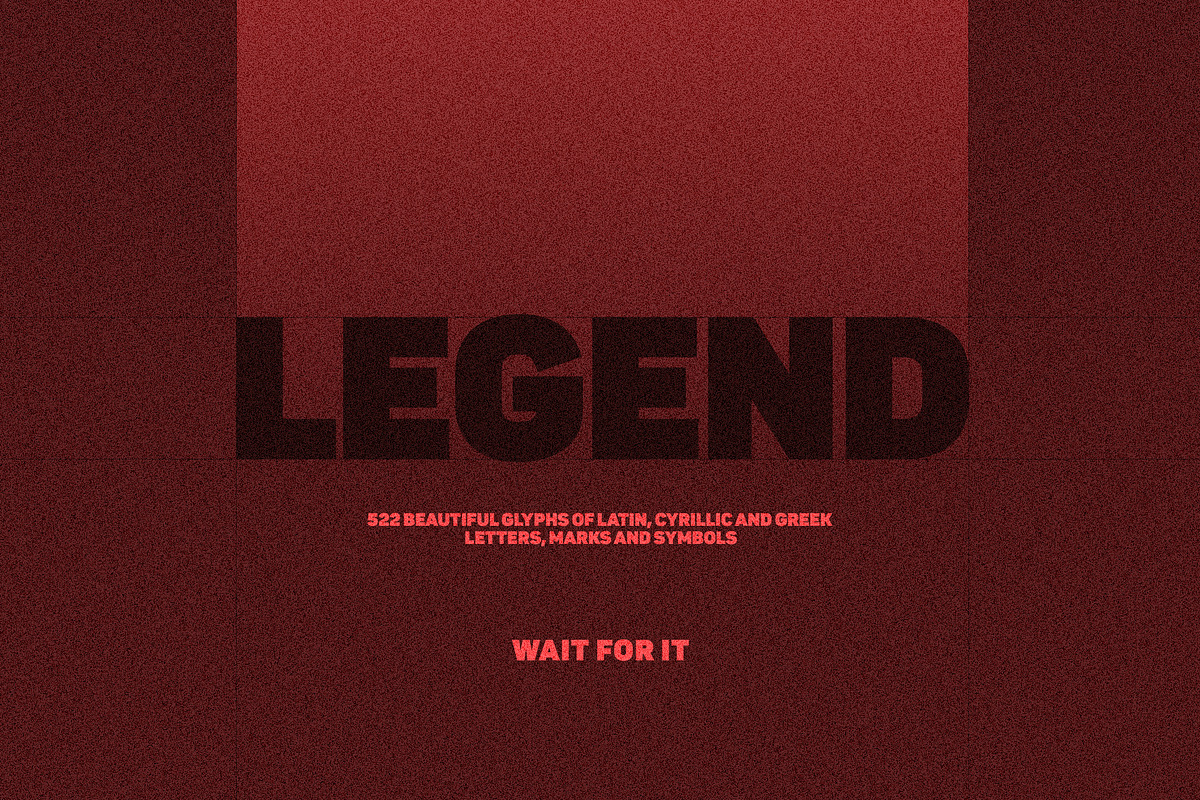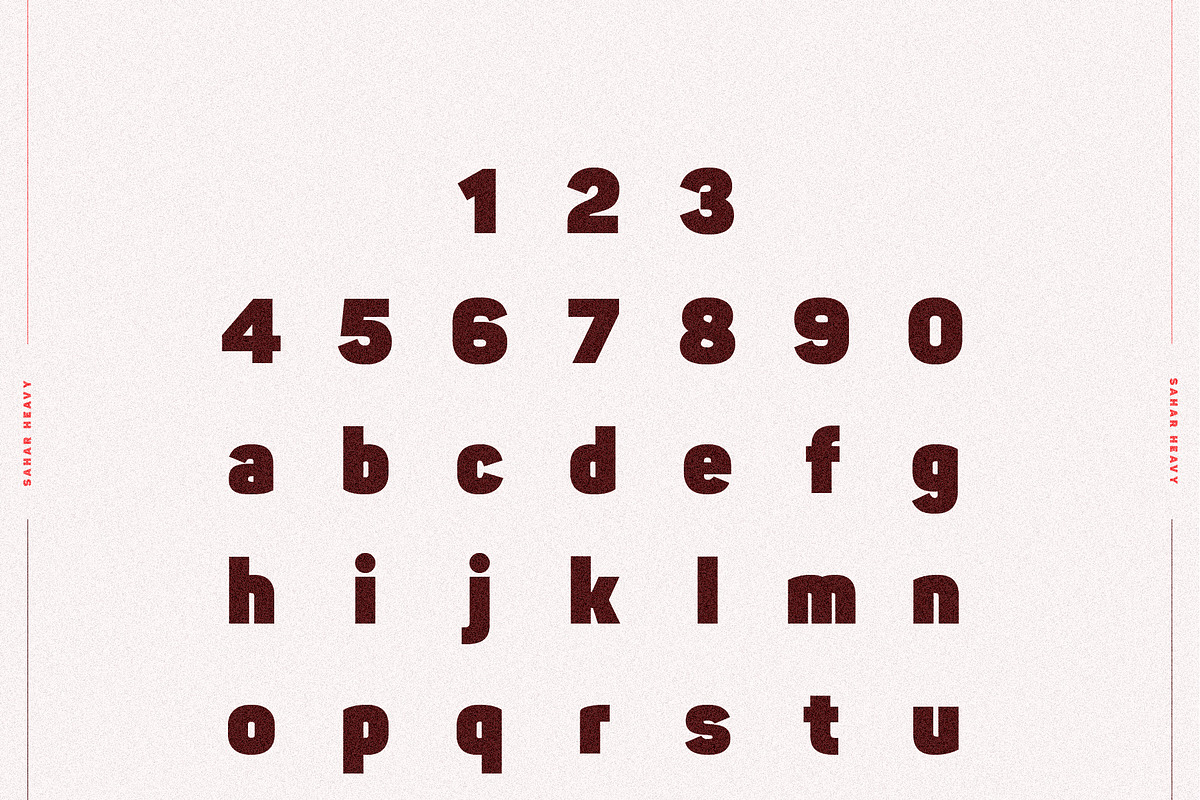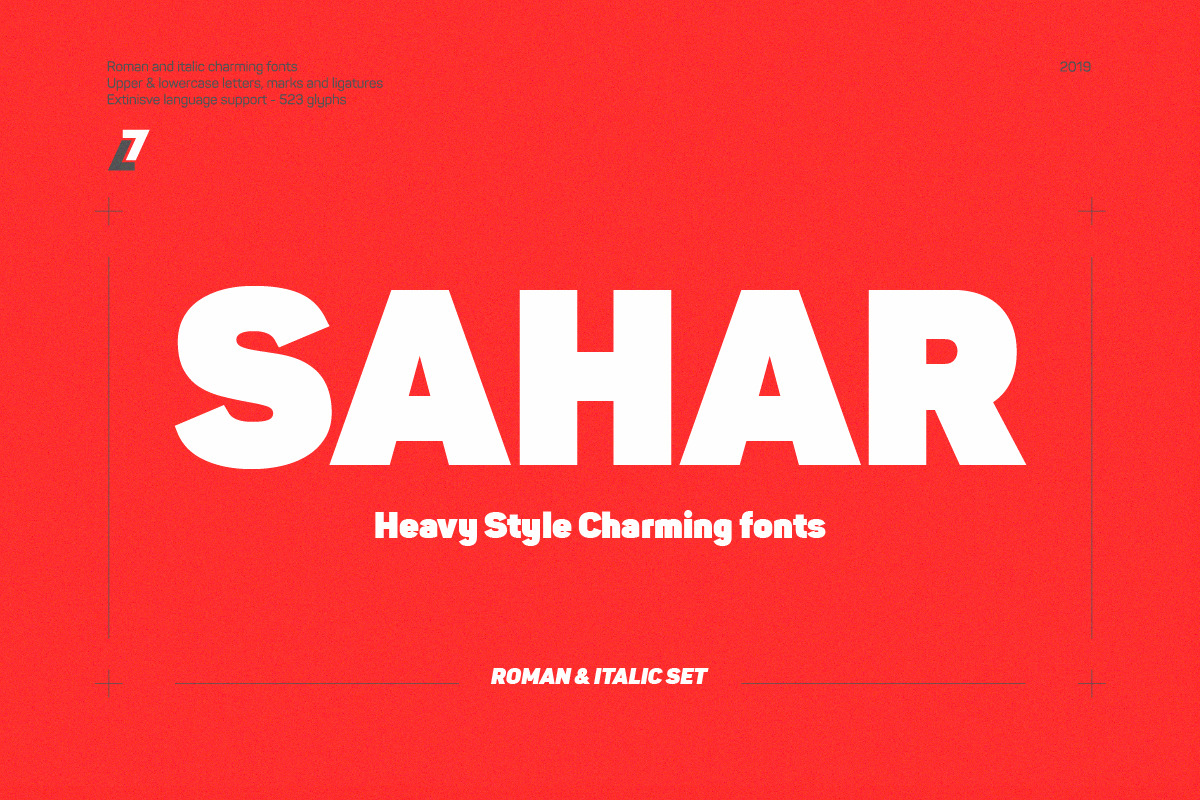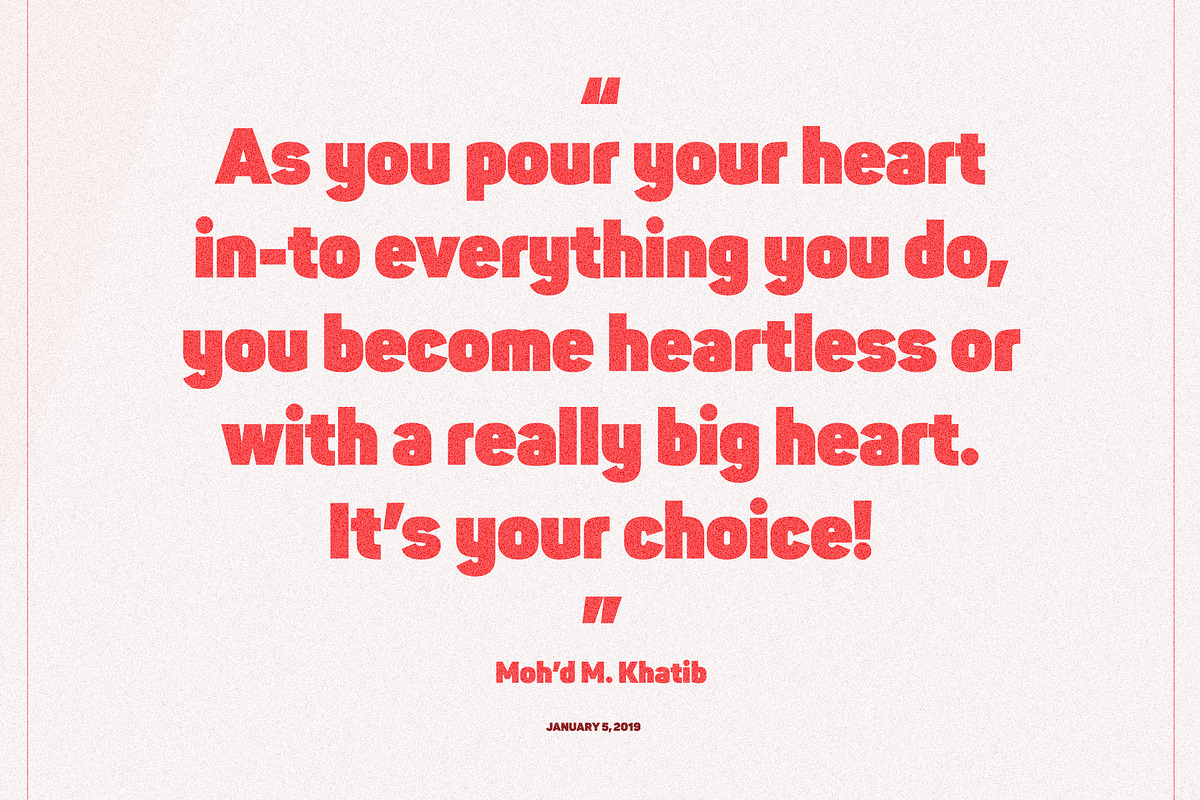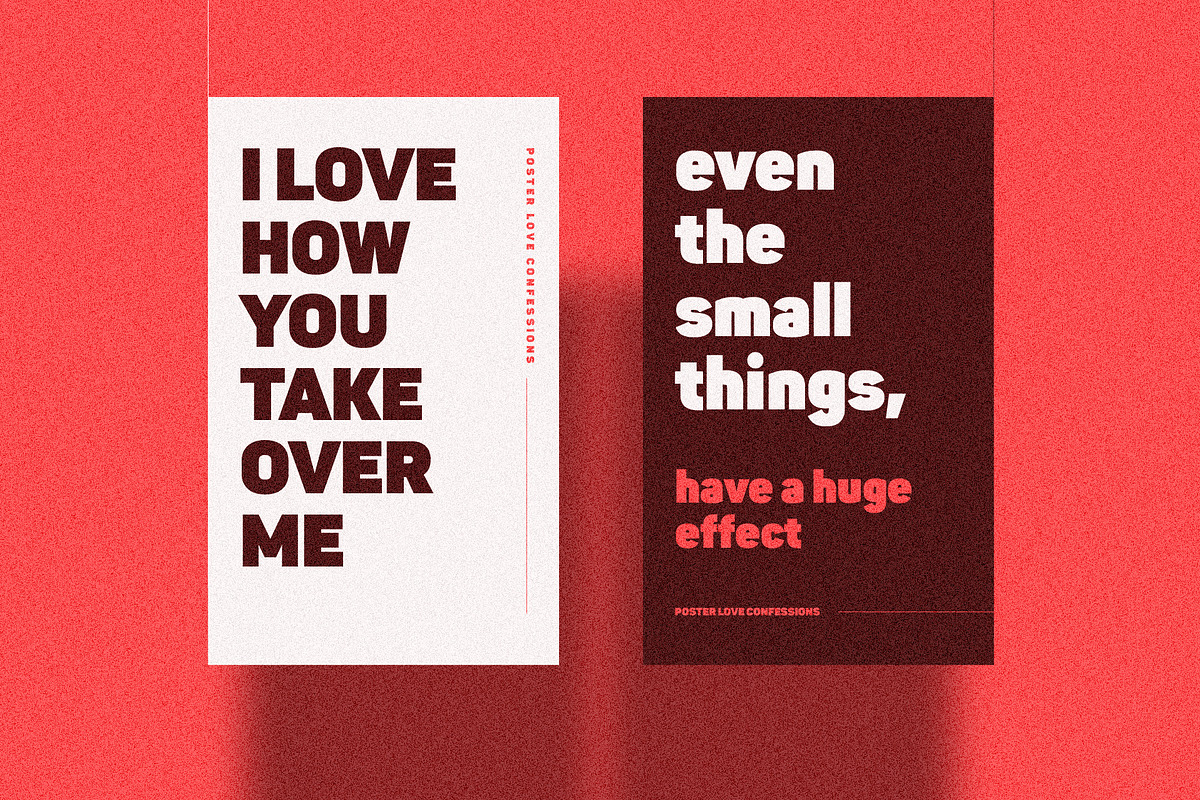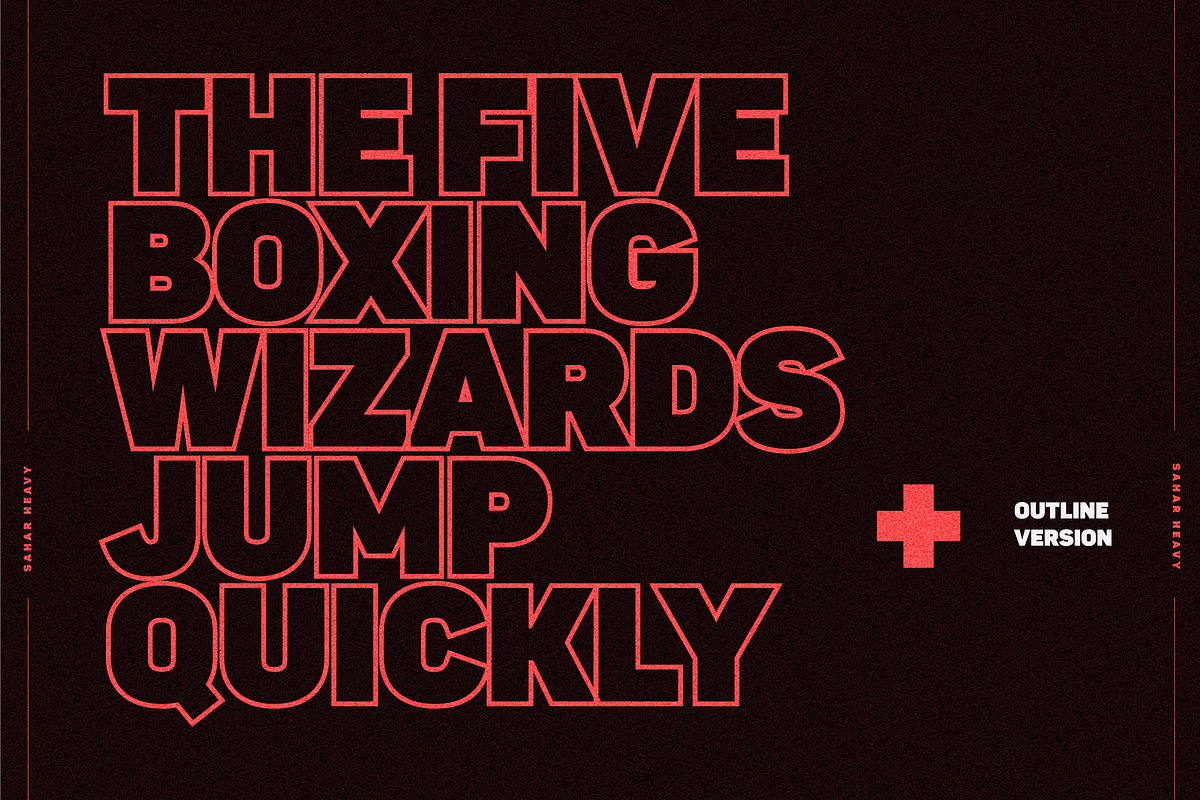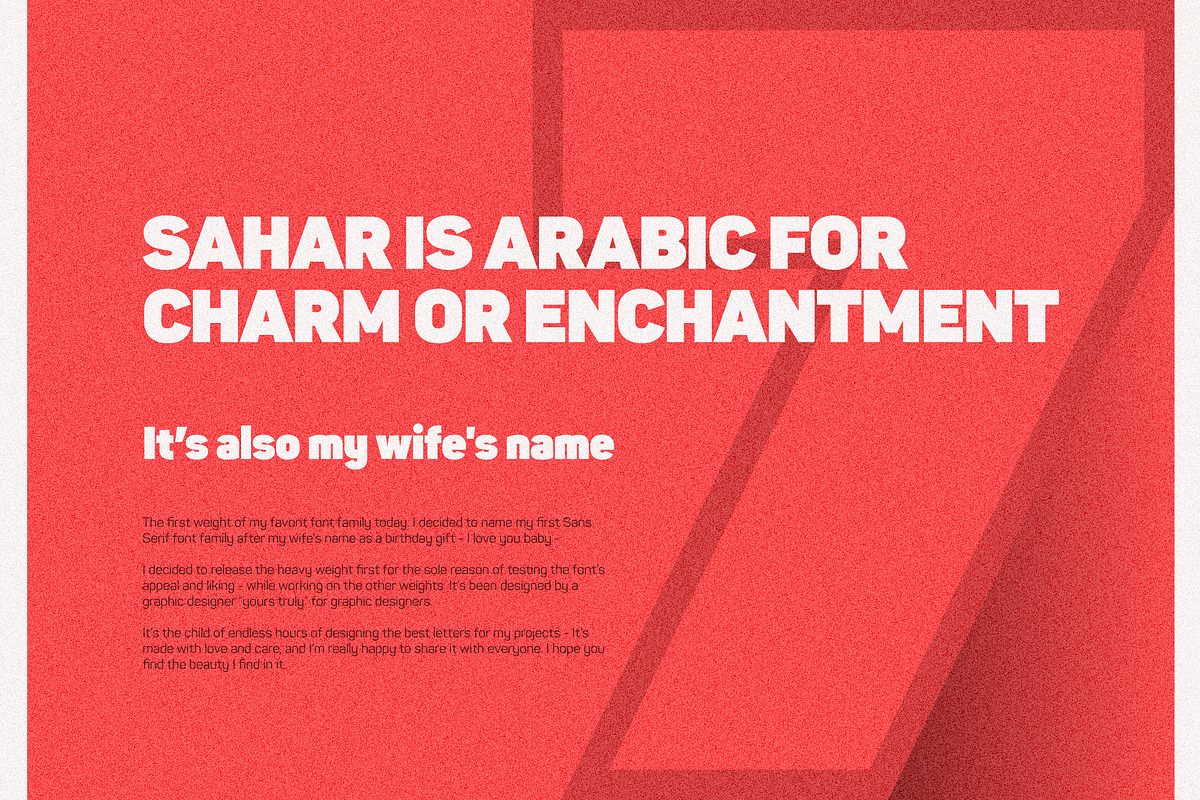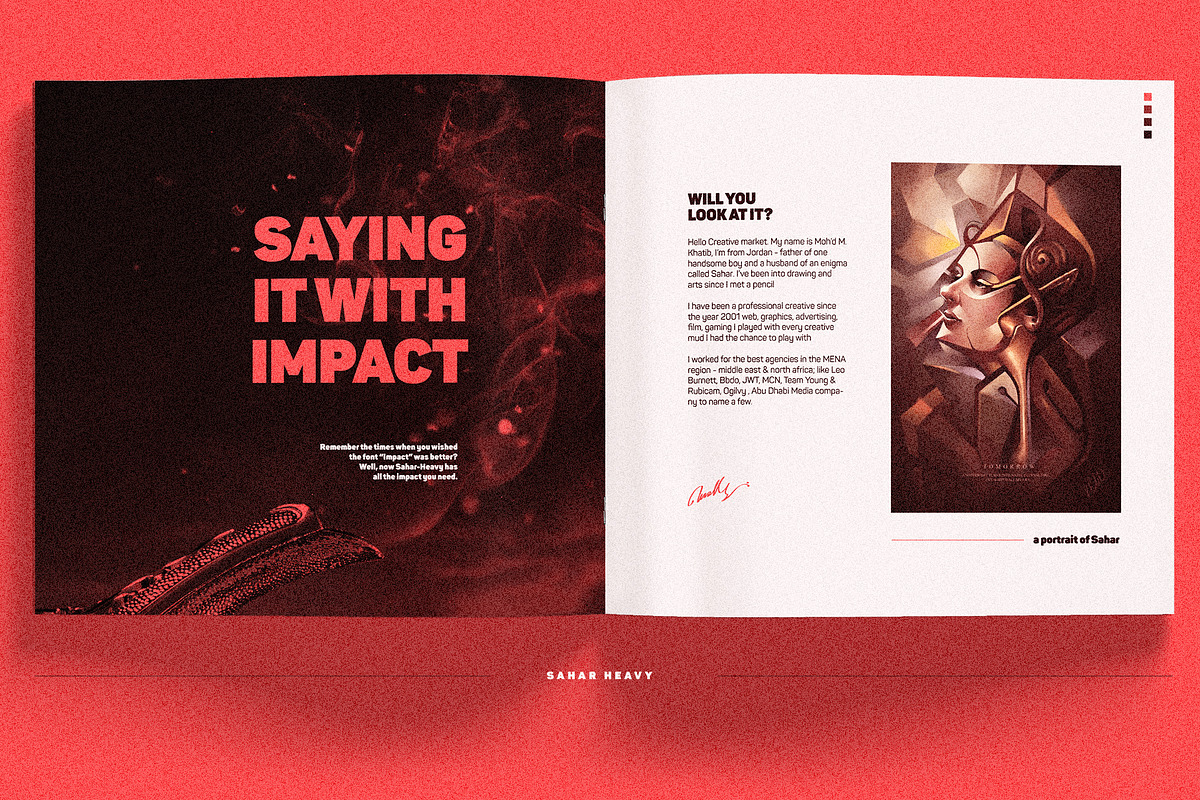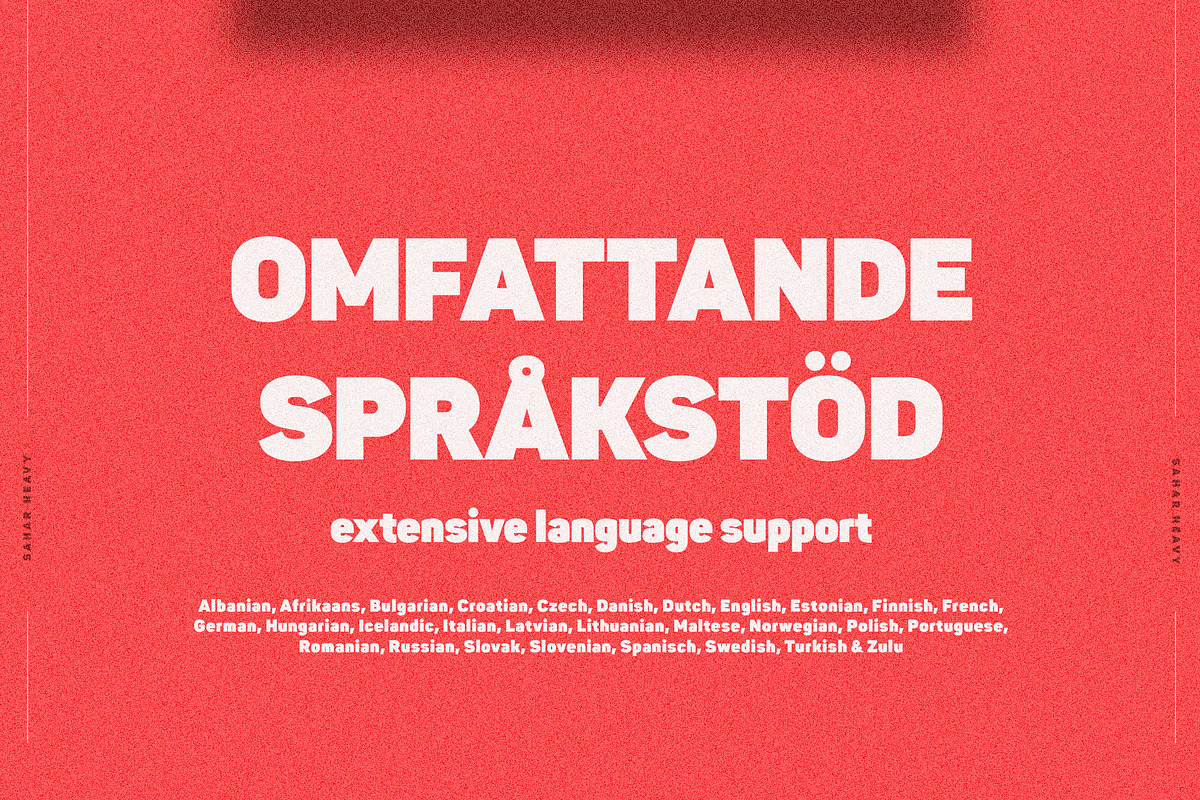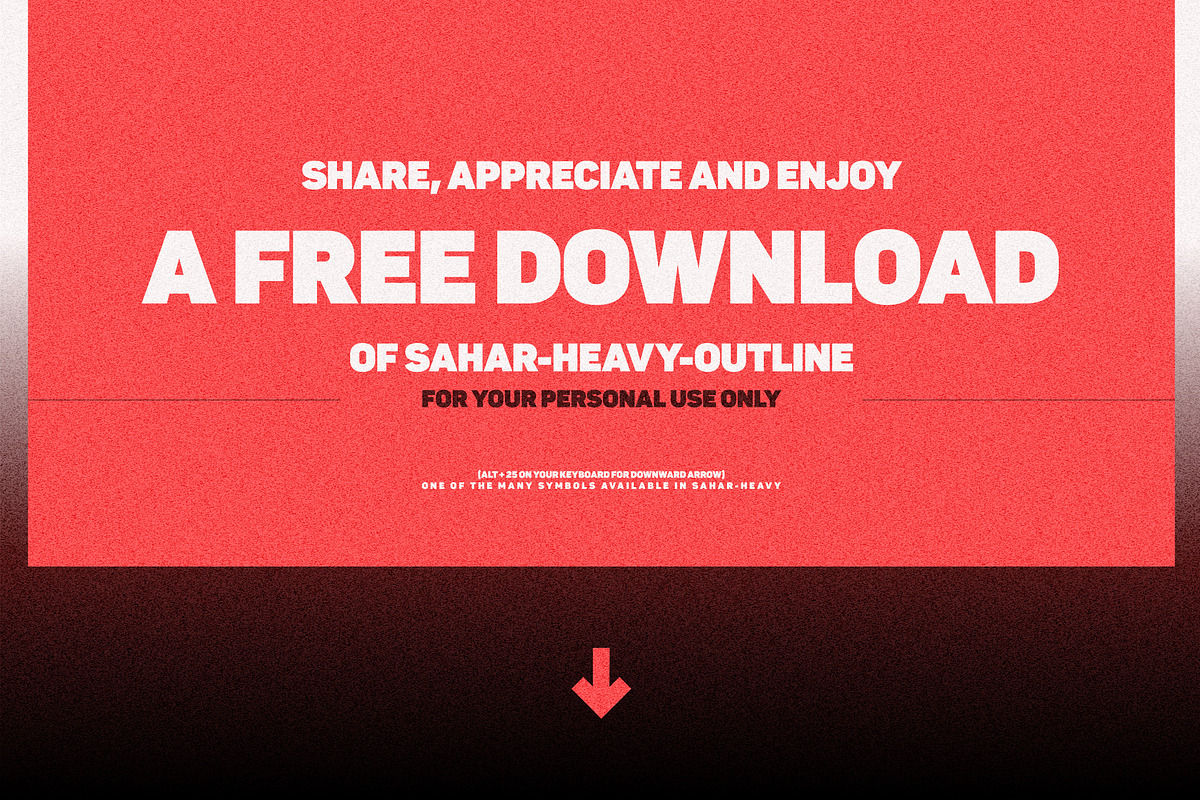
Sahar Heavy (Roman & Italic)
- Hot & Heavy Display Sans Serif -
The firstborn of a perfectly balanced & charming sans serif family. It’s inspired by and named after my lovely wife Sahar - that is Arabic for charm. Sahar-Heavy has all the charm you need in a display font; to make a powerful yet elegant statement. Each letter, upper or lower case oozes with authority & power
- Extensive language support - 522 glyphs of Latin, Cyrillic & Greek script
- Upper & lower case letters, ligatures, marks, and symbols
USE
Sahar Heavy is great for taking over spaces with power and charisma. it is your go-to display font when you want to make an impact. Works great for headlines, logos, and branding. the solid version is the mic dropper, the outlined is that strong gentle giant